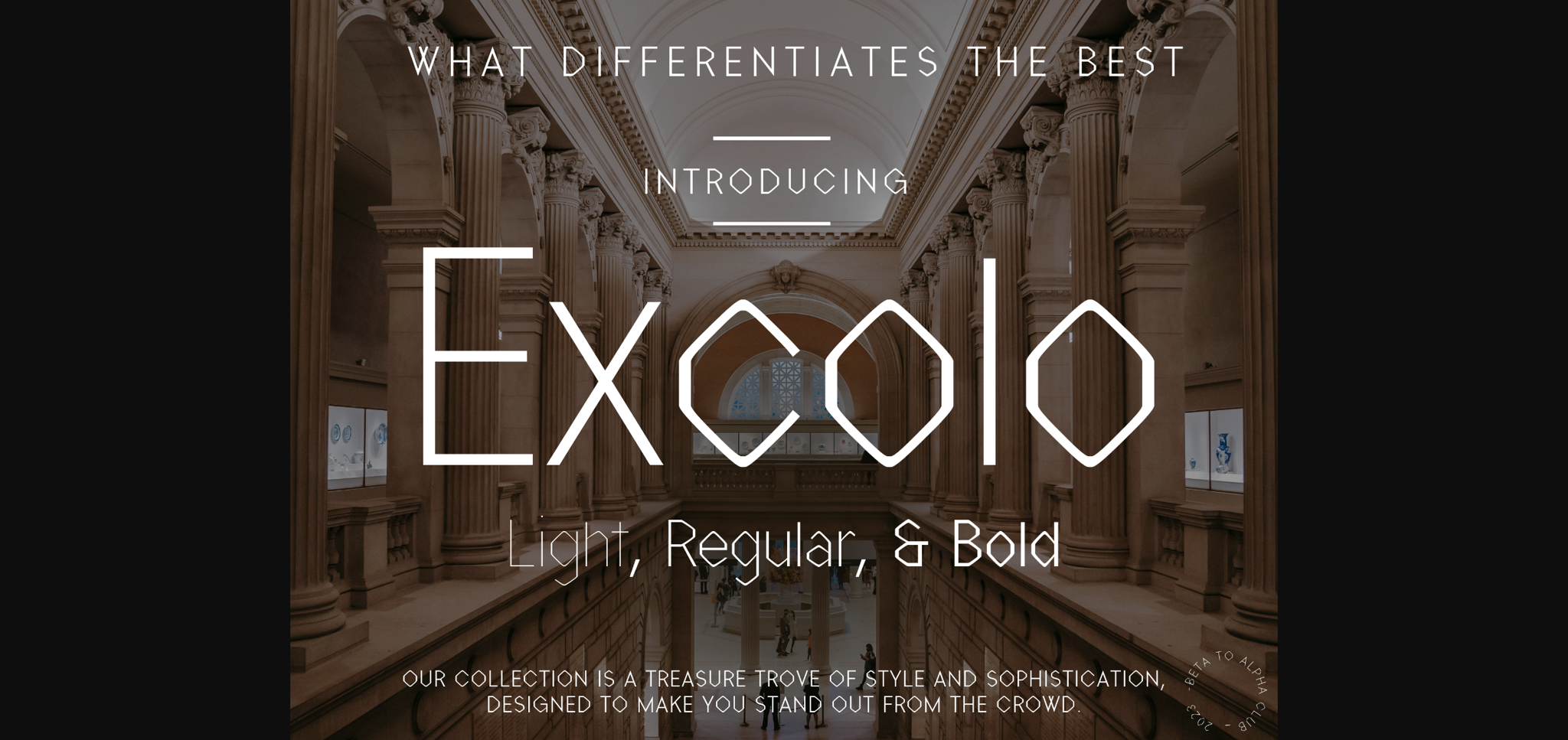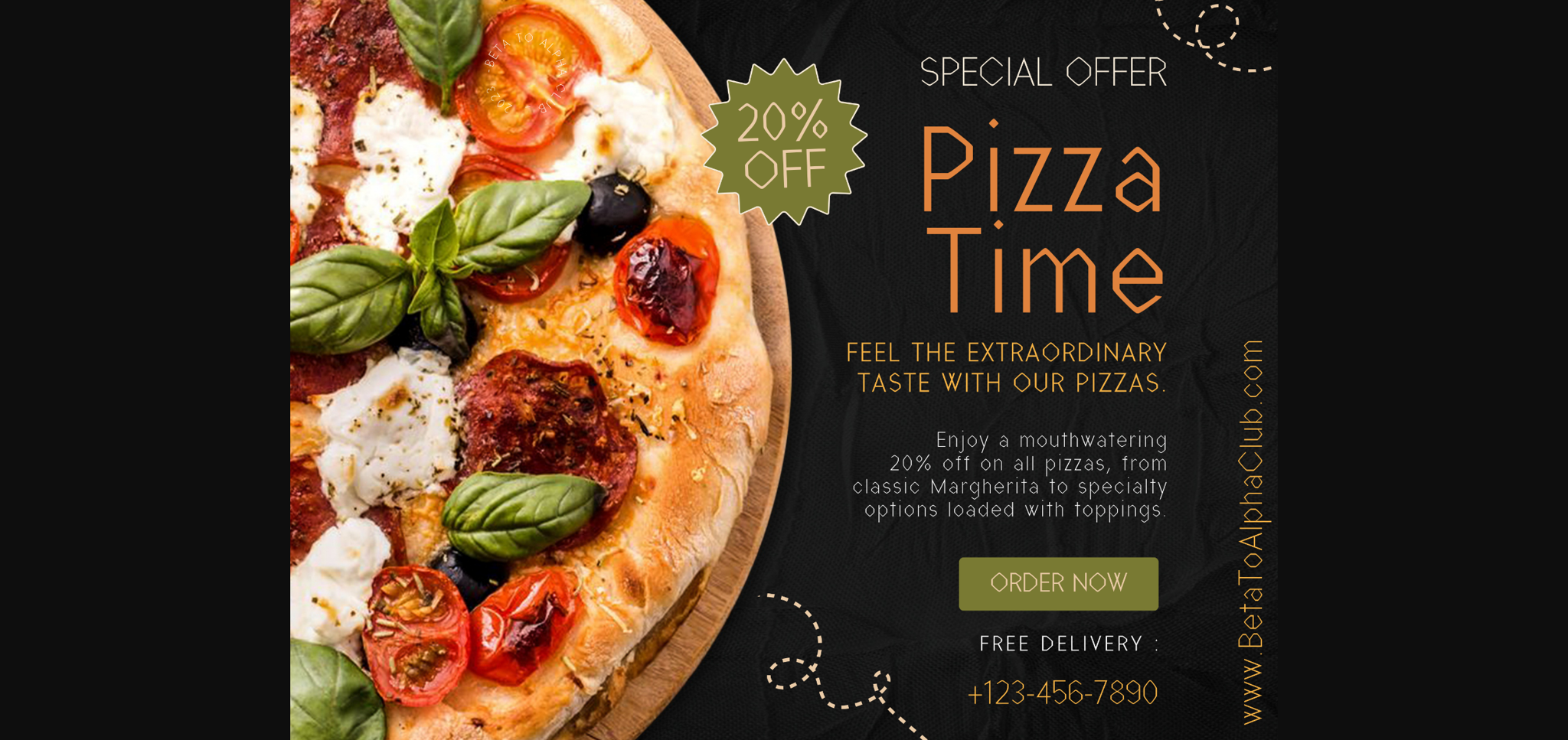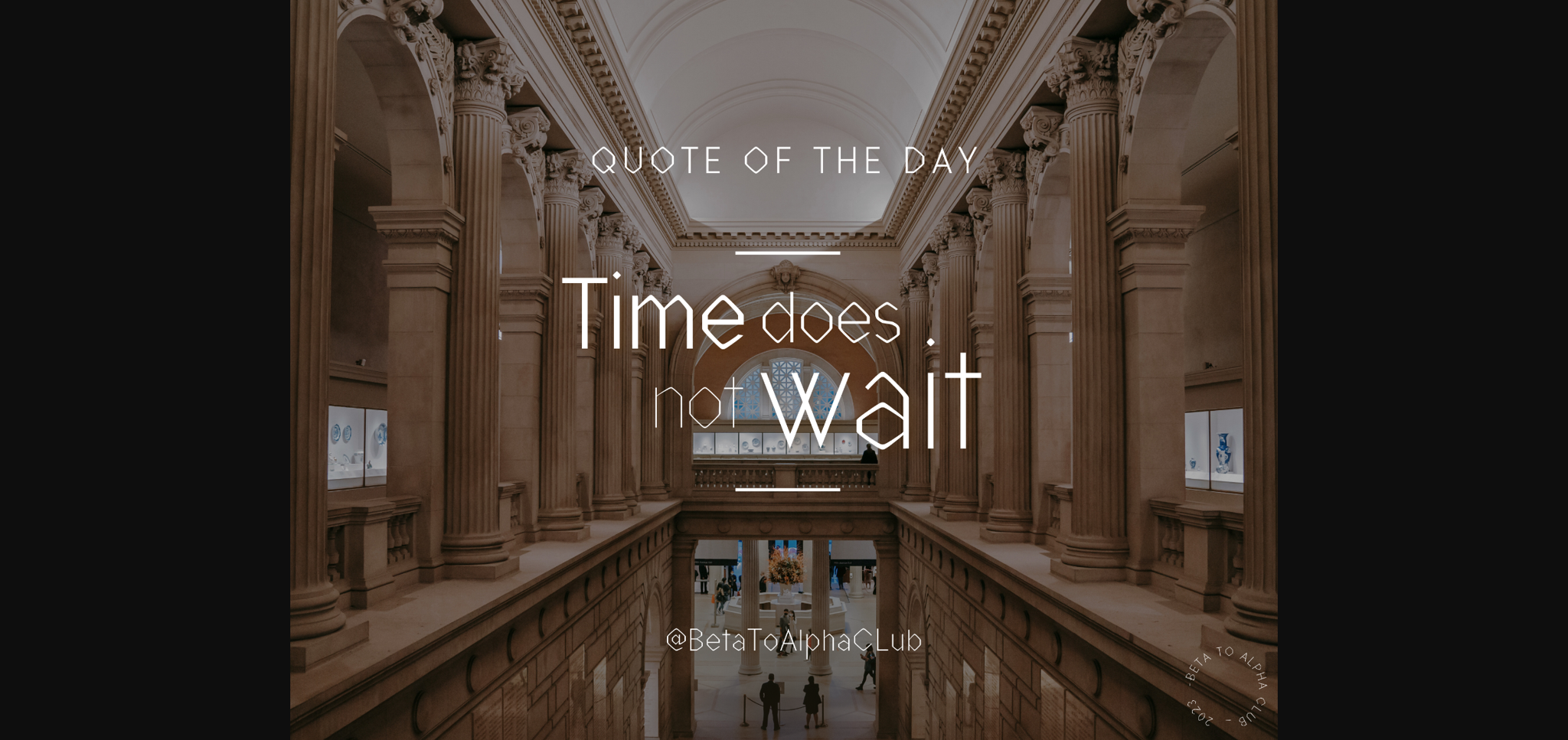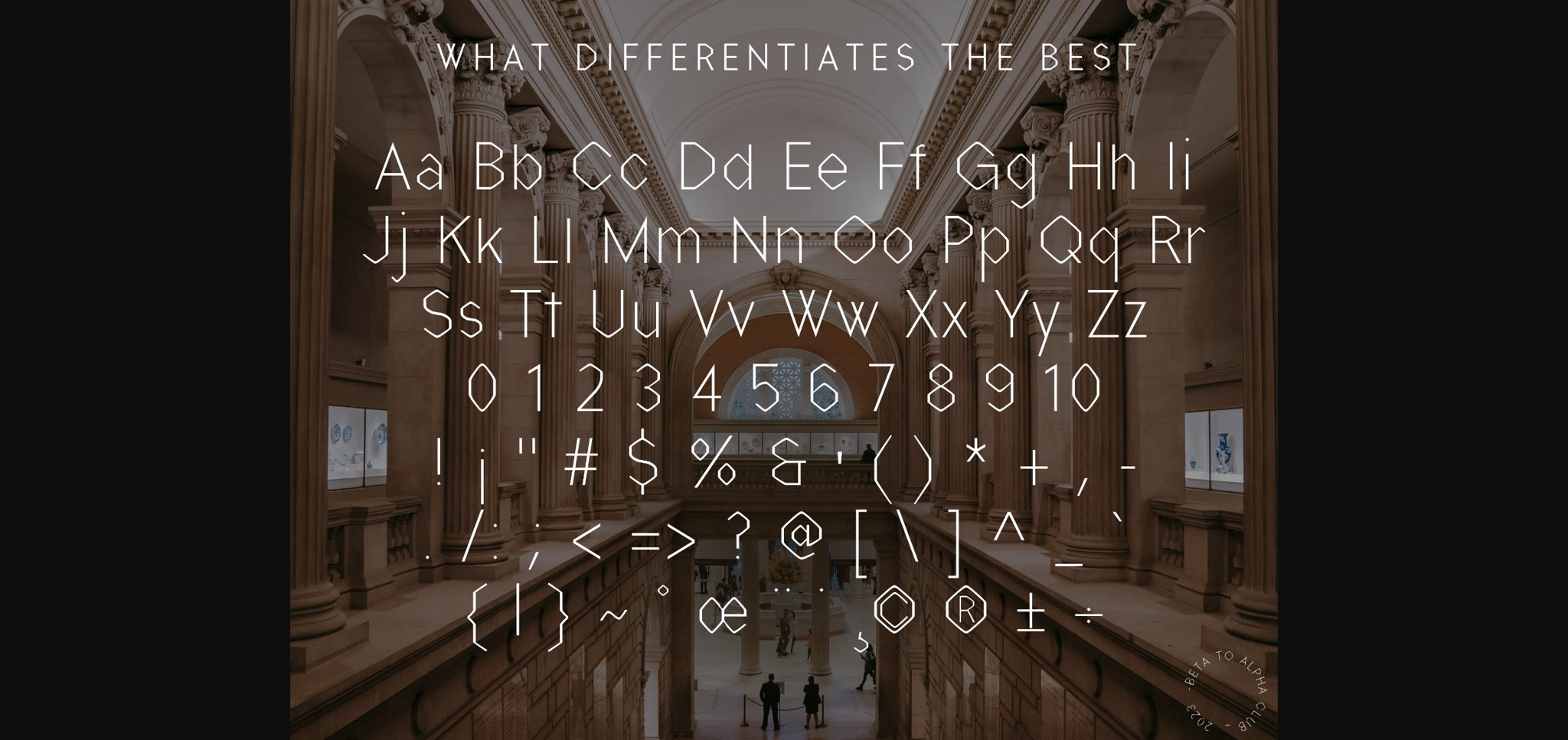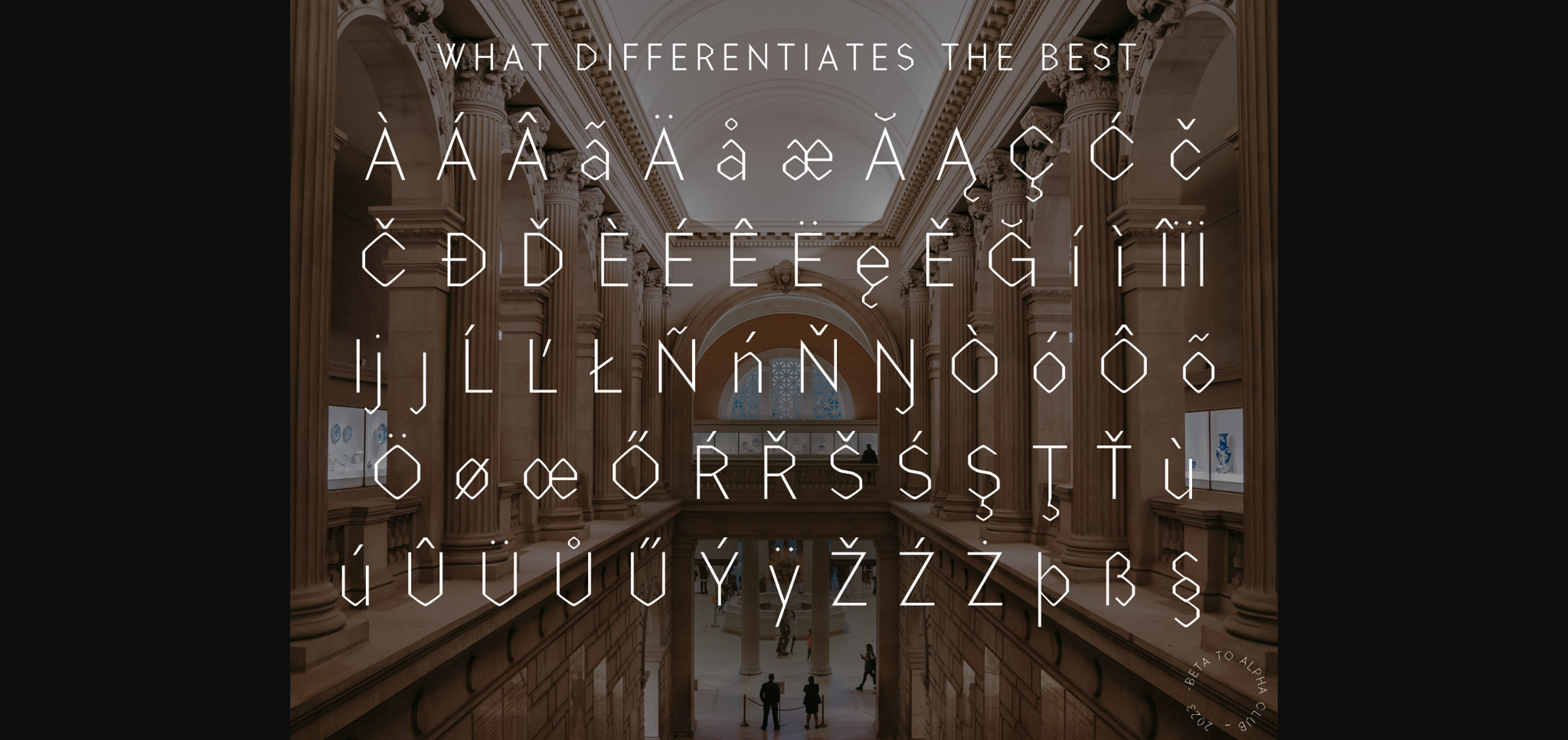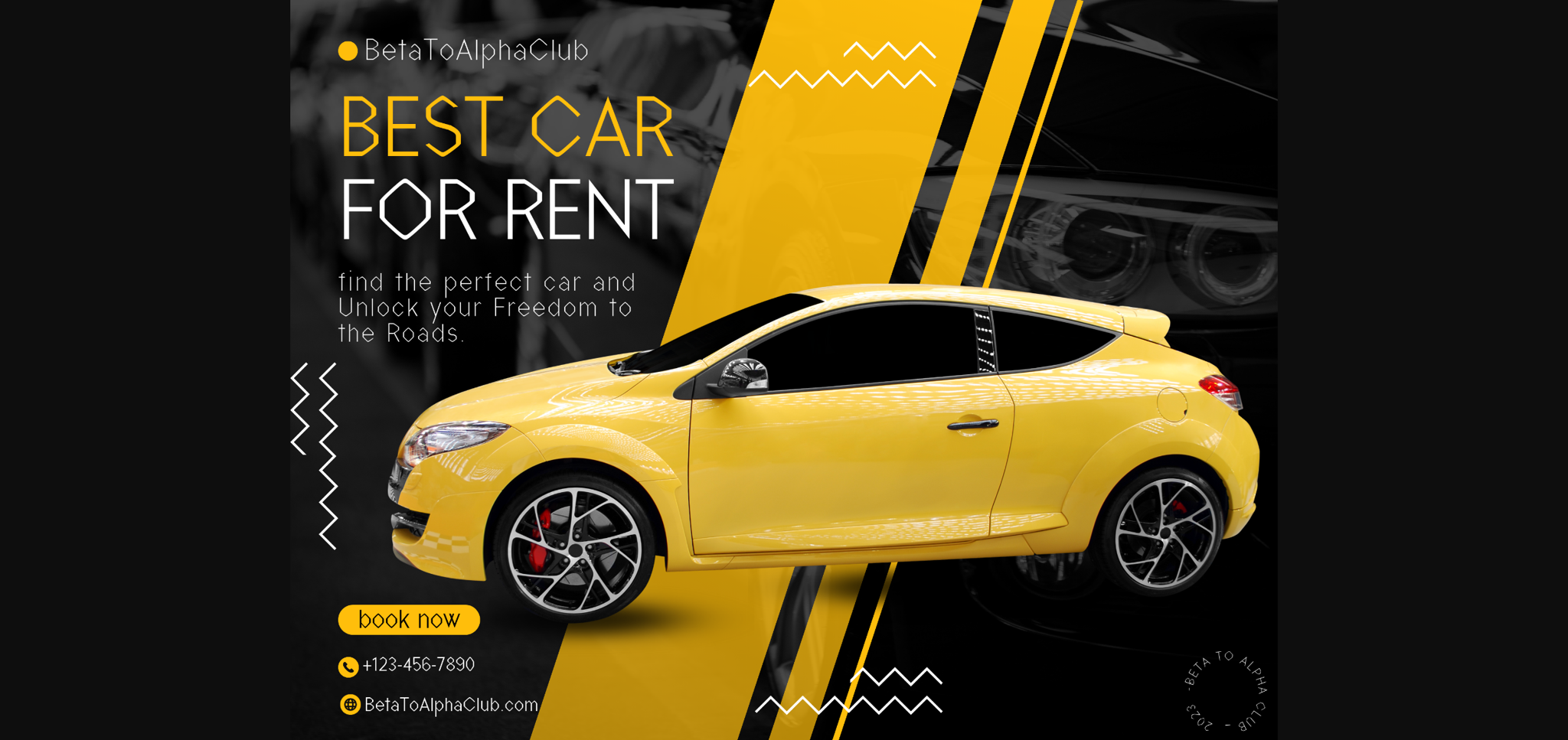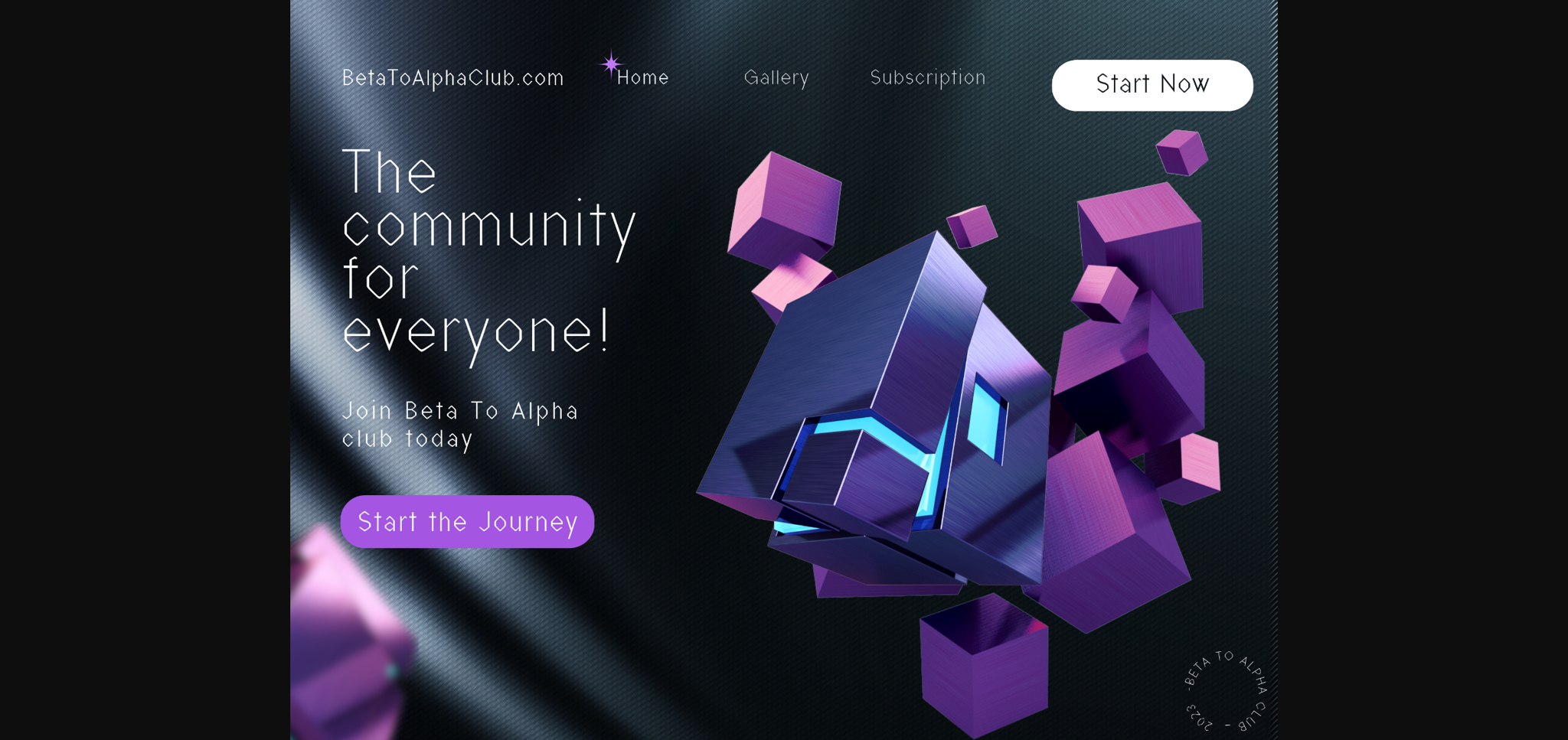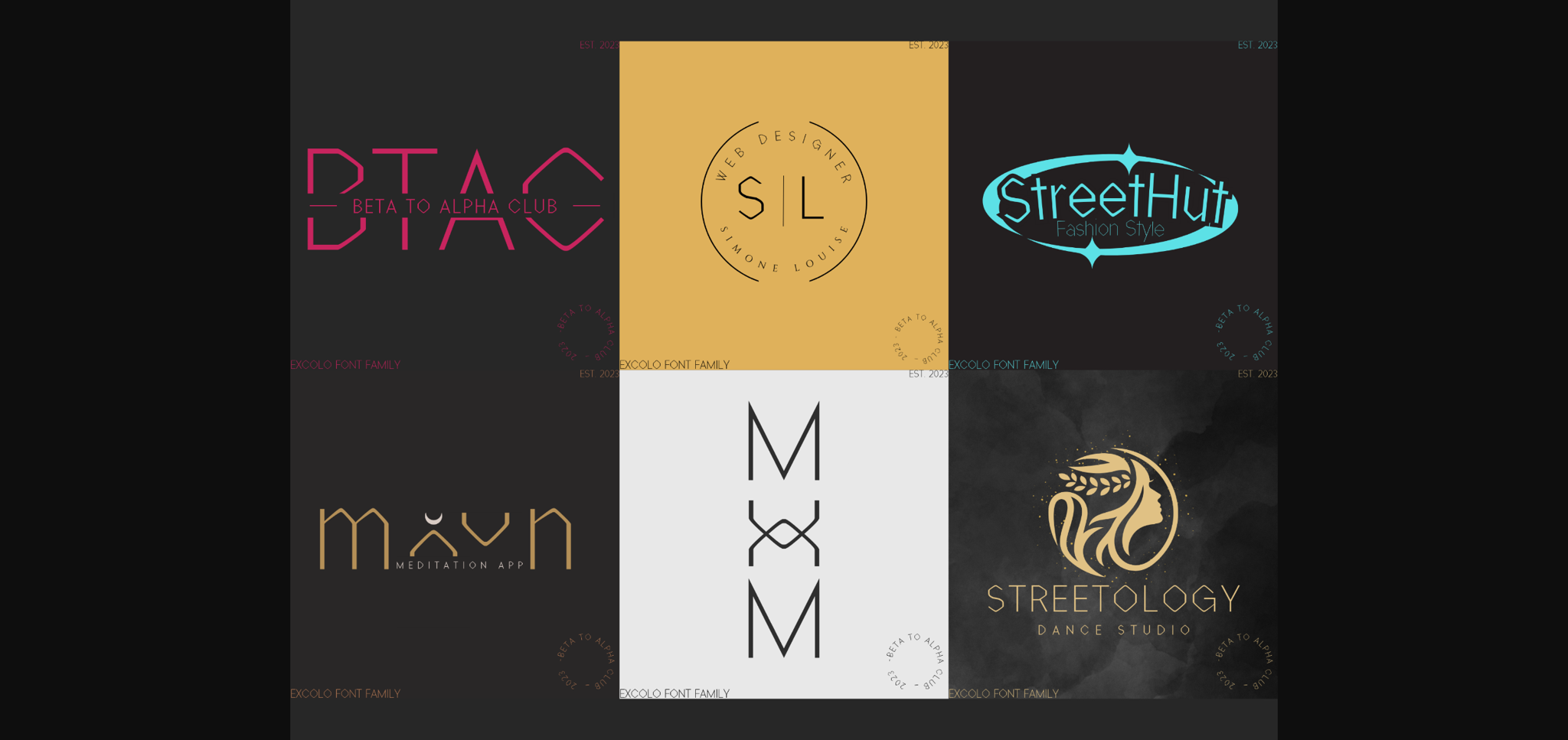
Excolo Font
About Excolo Font
Unleash the Power of Excolo Sans Serif Font!
Elevate your message with three dynamic variations: Light, Regular, and Bold.
These sharp, refined edges radiate sophistication, ensuring your words dance off the page! From logos to headlines, Excolo makes your message pop with elegance and clarity.